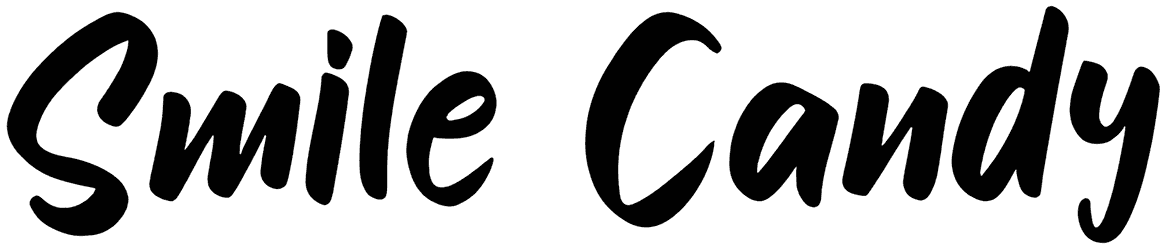
Smile Candy Font
Smile Candy font is a friendly and funny design that will endure in the packaging of chocolates and many sweet snacks. This comic font design can be the best in packing various foods such as donuts, especially for the title of many donut shops and cupcakes, which can raise your brand.